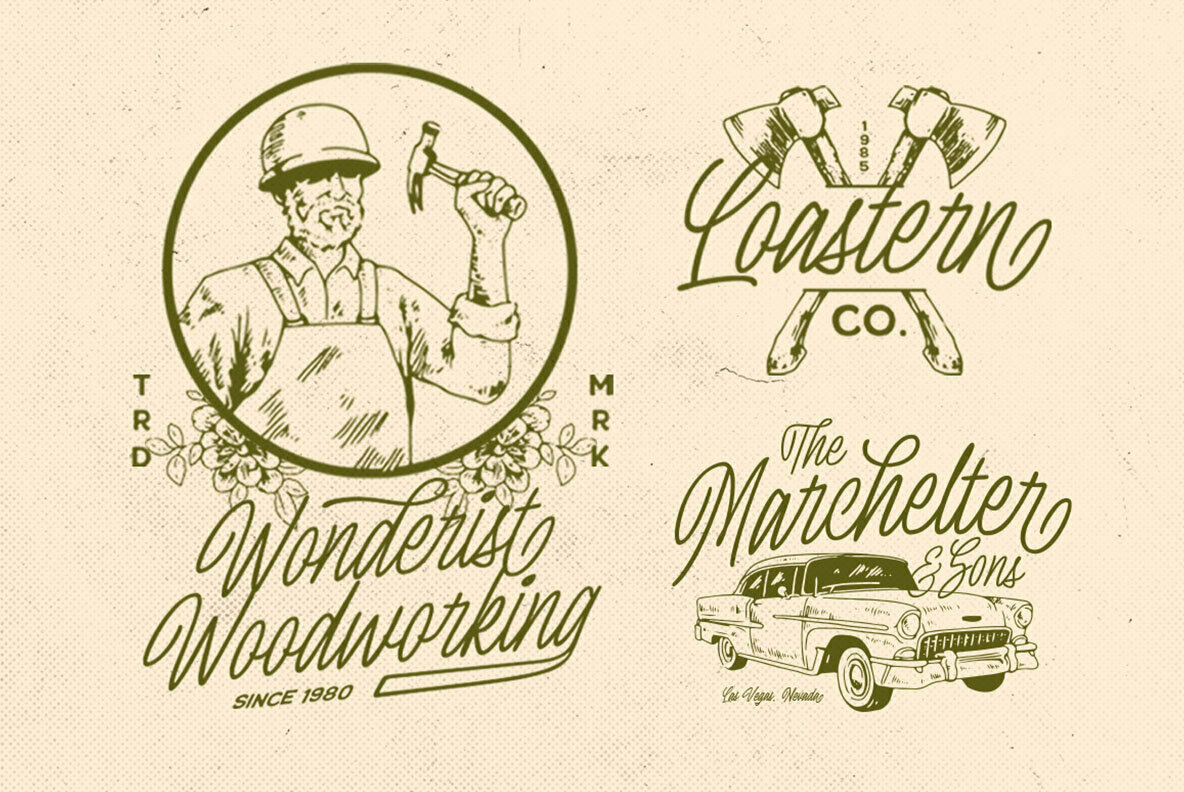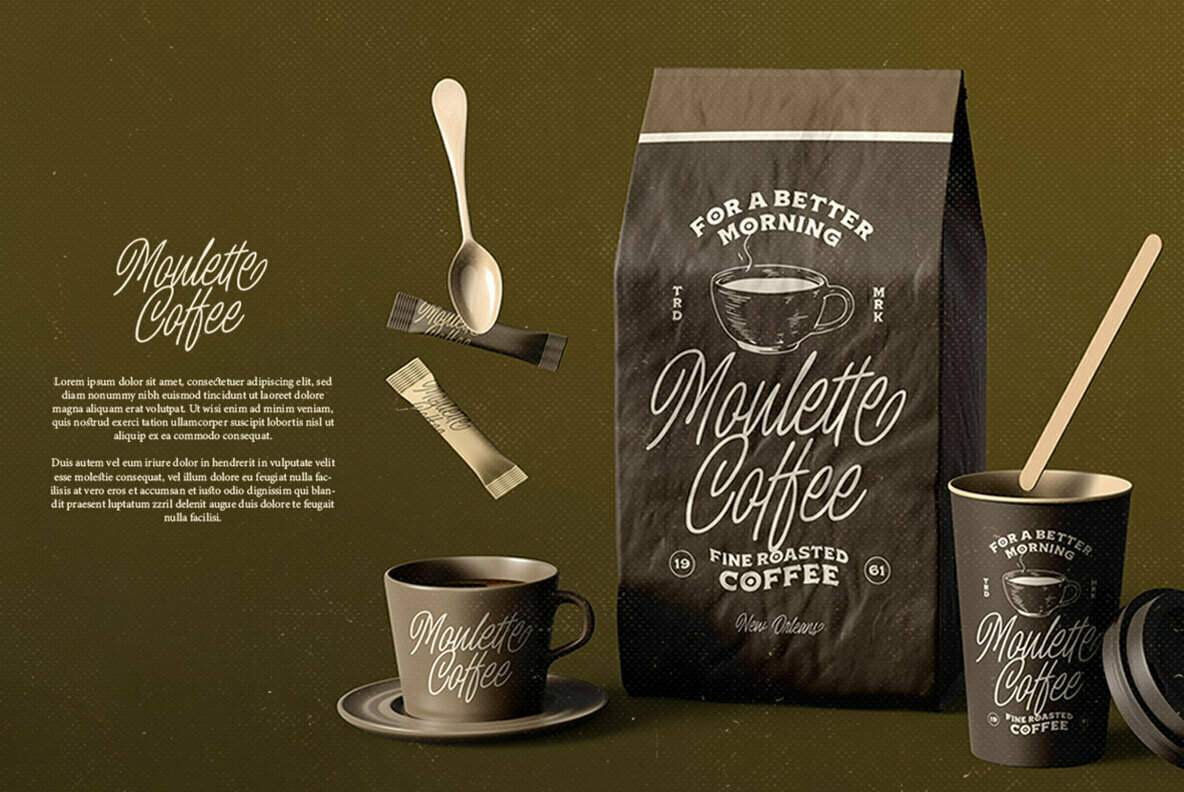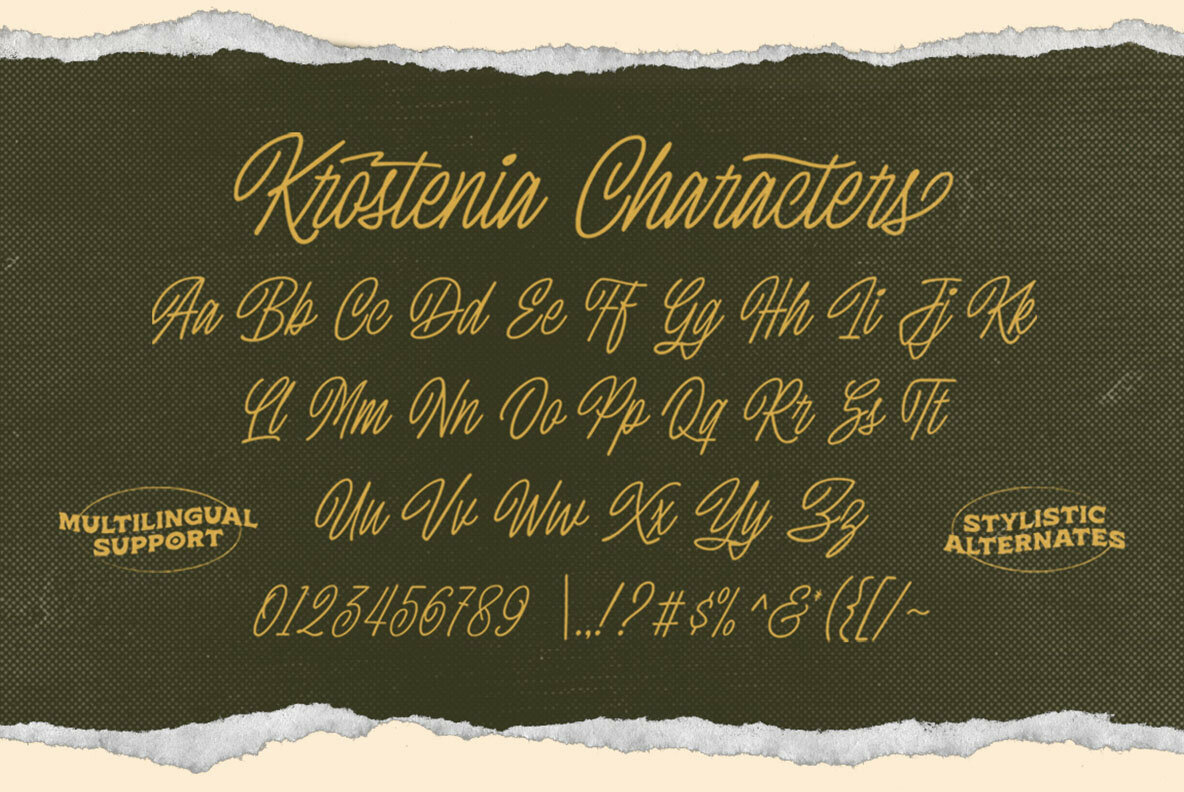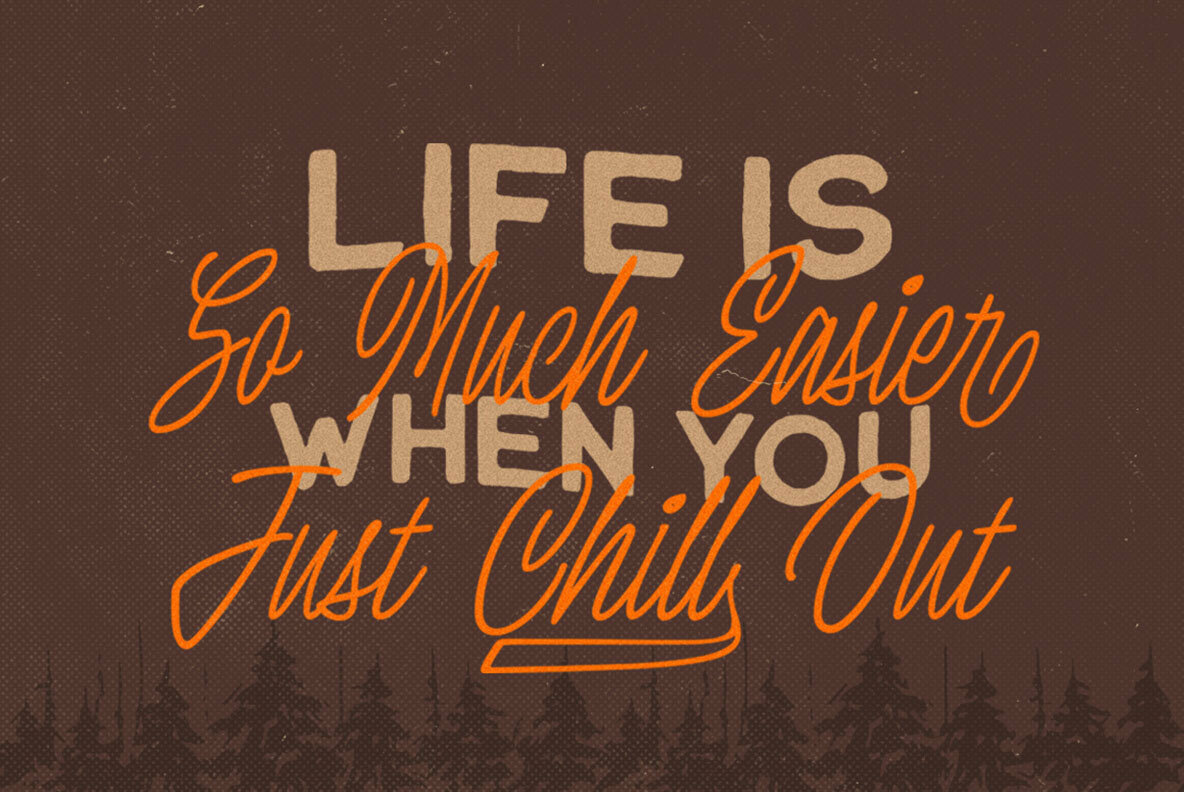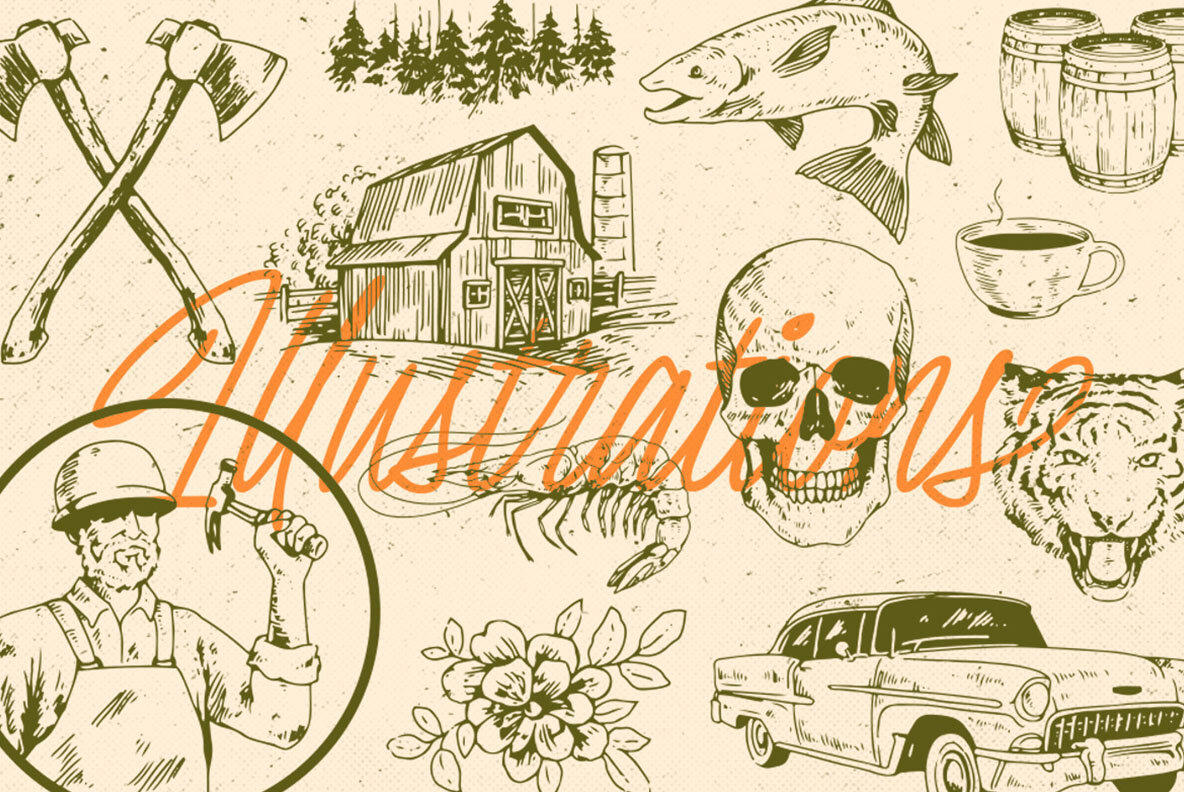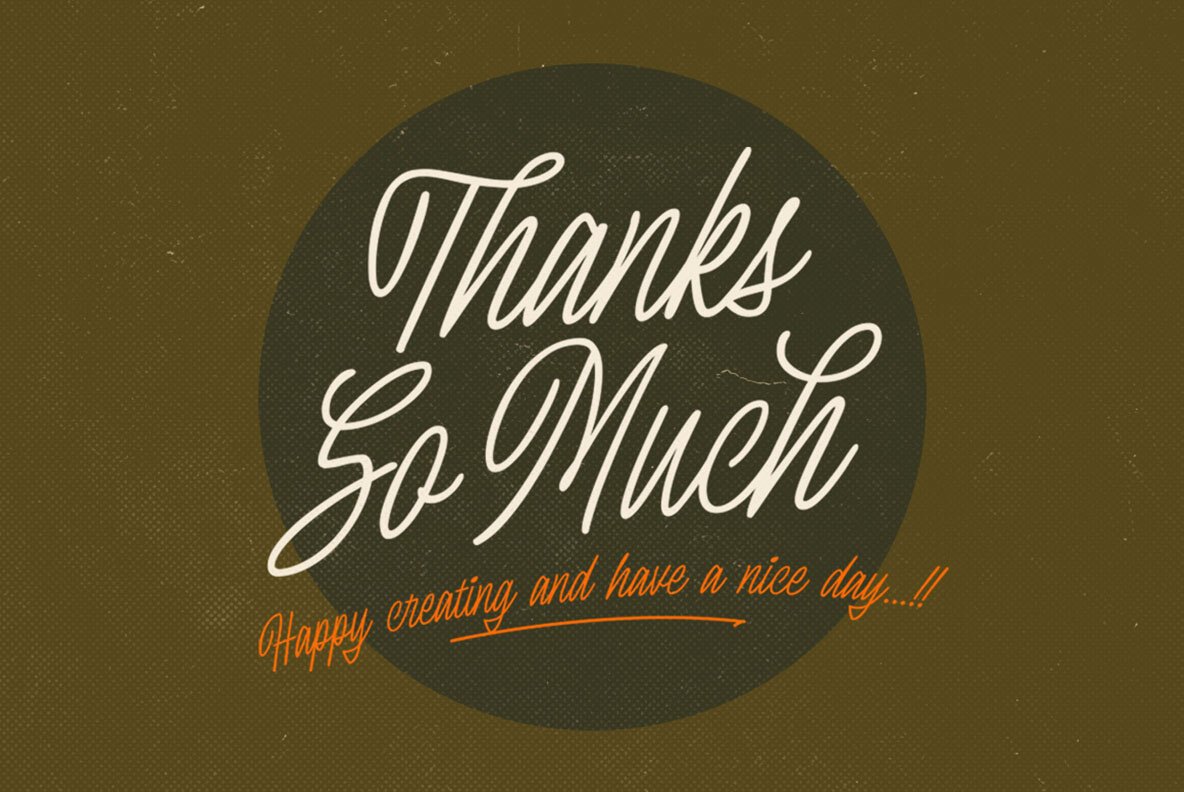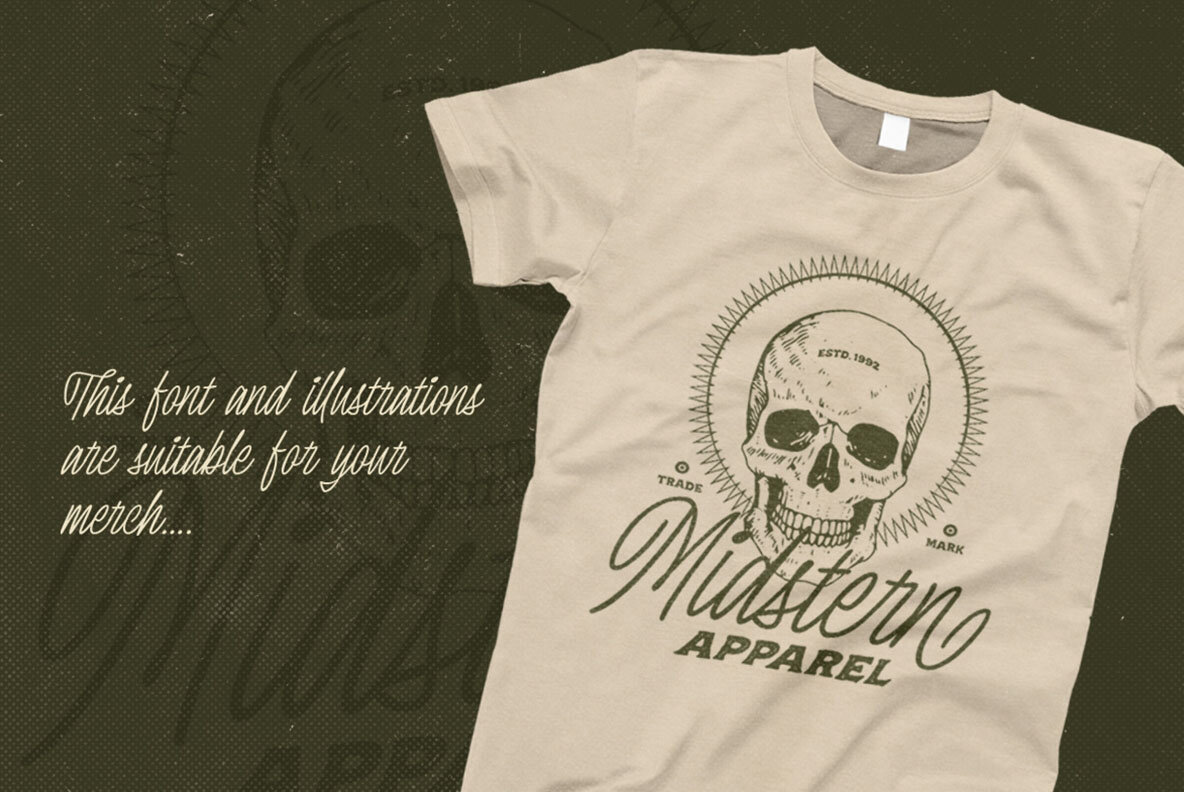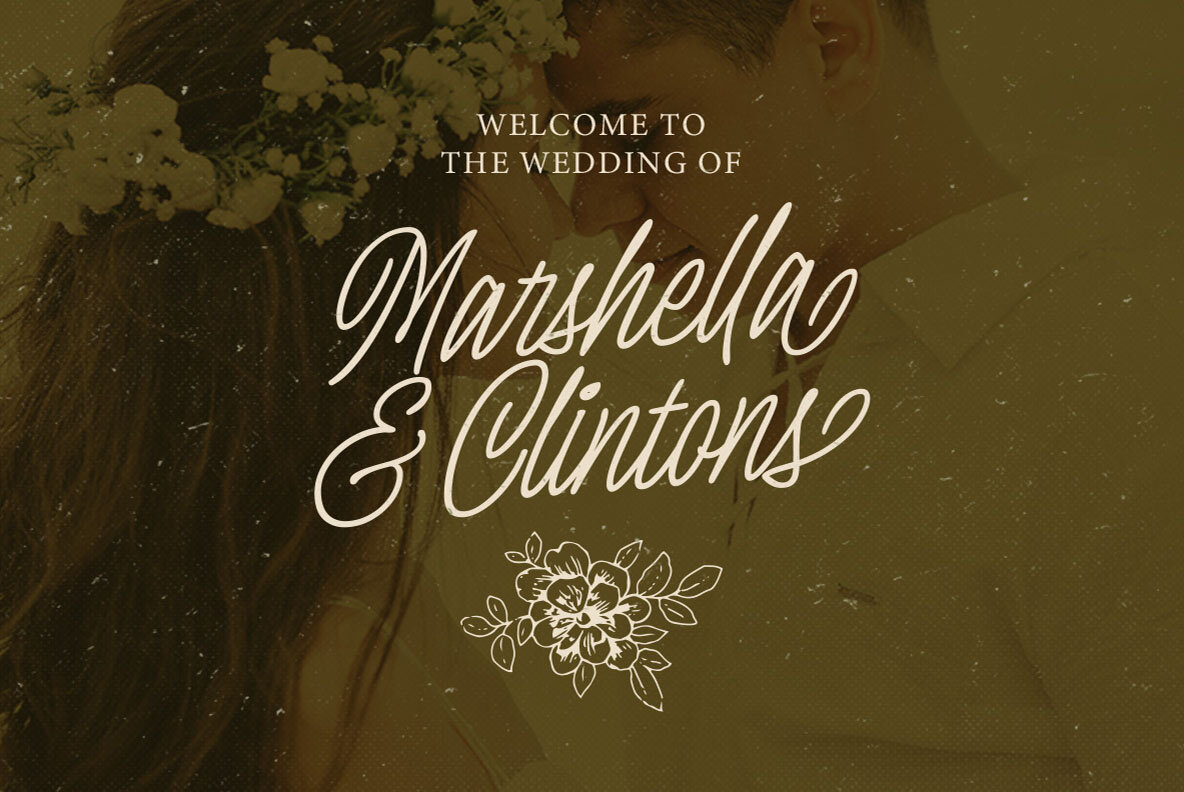
Krostenia Font
Krostenia Font and Bonus (1 font)
Krostenia - a monoline script with a touch of vintage look and feel. You will also get 12 detailed hand drawn objects ready to use. This type of font perfectly made to be applied especially in logo, headline, signage and the other various formal forms such as invitations, labels, logos, magazines, books, greeting / wedding cards, packaging, fashion, make up, stationery, novels, labels or any type of advertising purpose.
Features :
- Numbers and Punctuation
- Alternates / Swashes and Ligatures